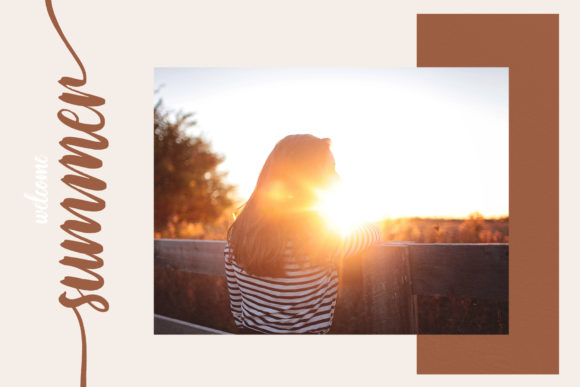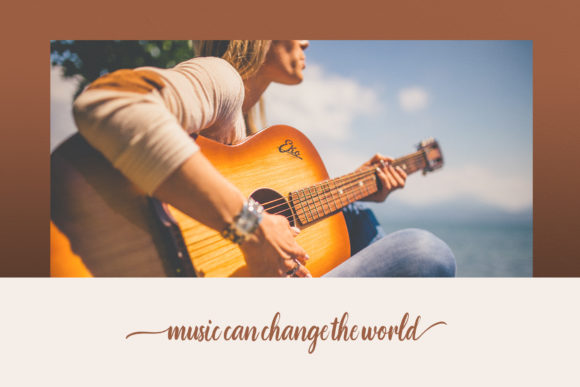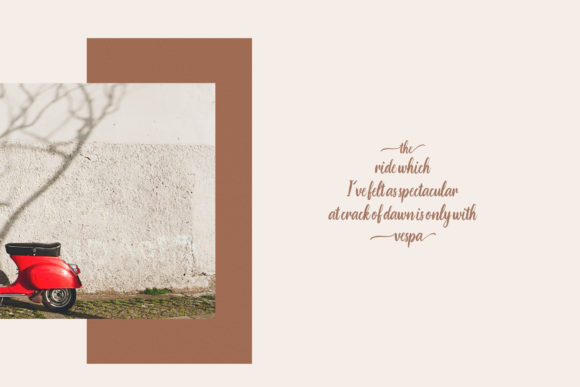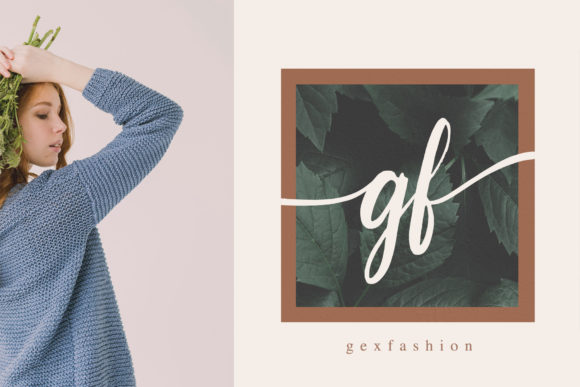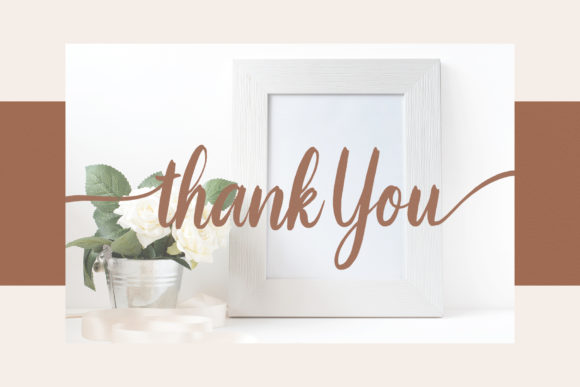
Bonillo Font
About Bonillo Font
Bonillo is a stunningly unique and playful handwritten font with a romantic touch. These swashes will turn any text into an eye-catcher!